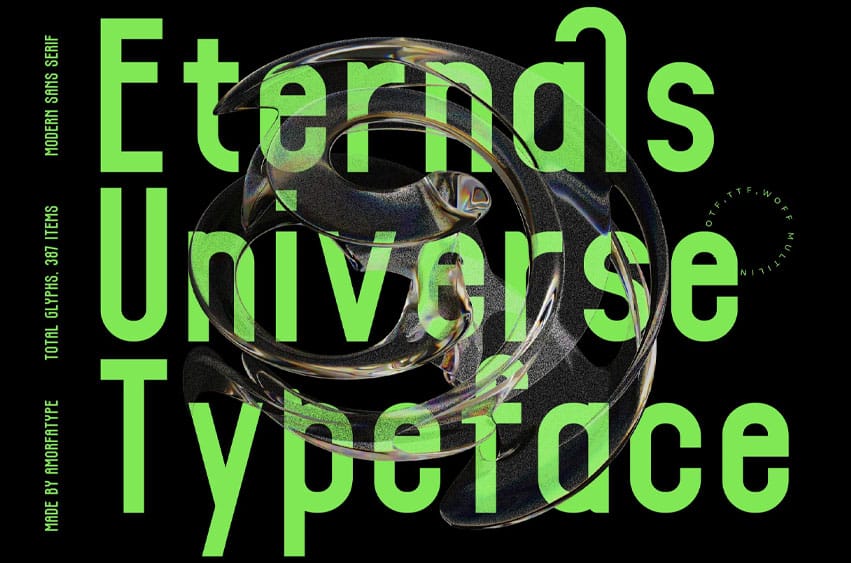
Eternals Universe Font embodies the essence of modern minimalism with a touch of cosmic flair. This alternate sans serif font features clean lines and geometric forms, creating a striking visual impact that is both contemporary and versatile. Each character is meticulously designed to ensure clarity and readability while maintaining an innovative aesthetic.
- Versatile & Timeless – Ideal for both modern and classic compositions
- Multilingual Support – Includes a wide range of international characters
- Complete Character Set: Uppercase, lowercase, numerals, punctuation, and ligatures